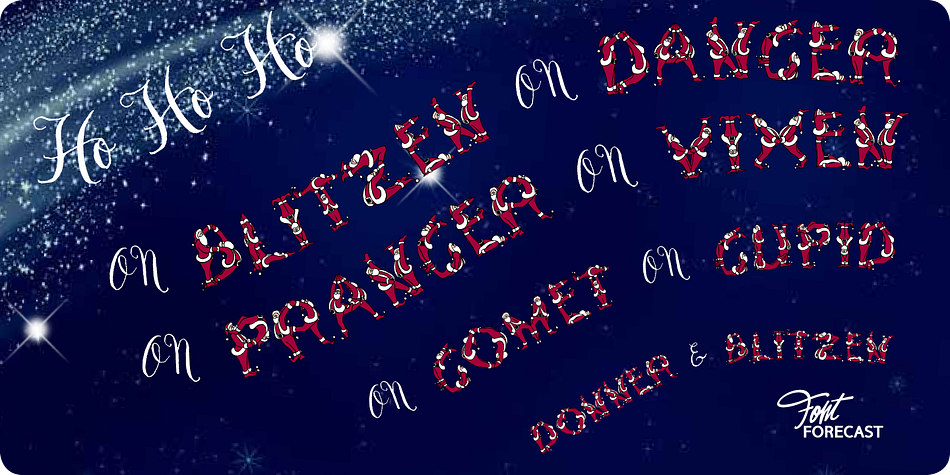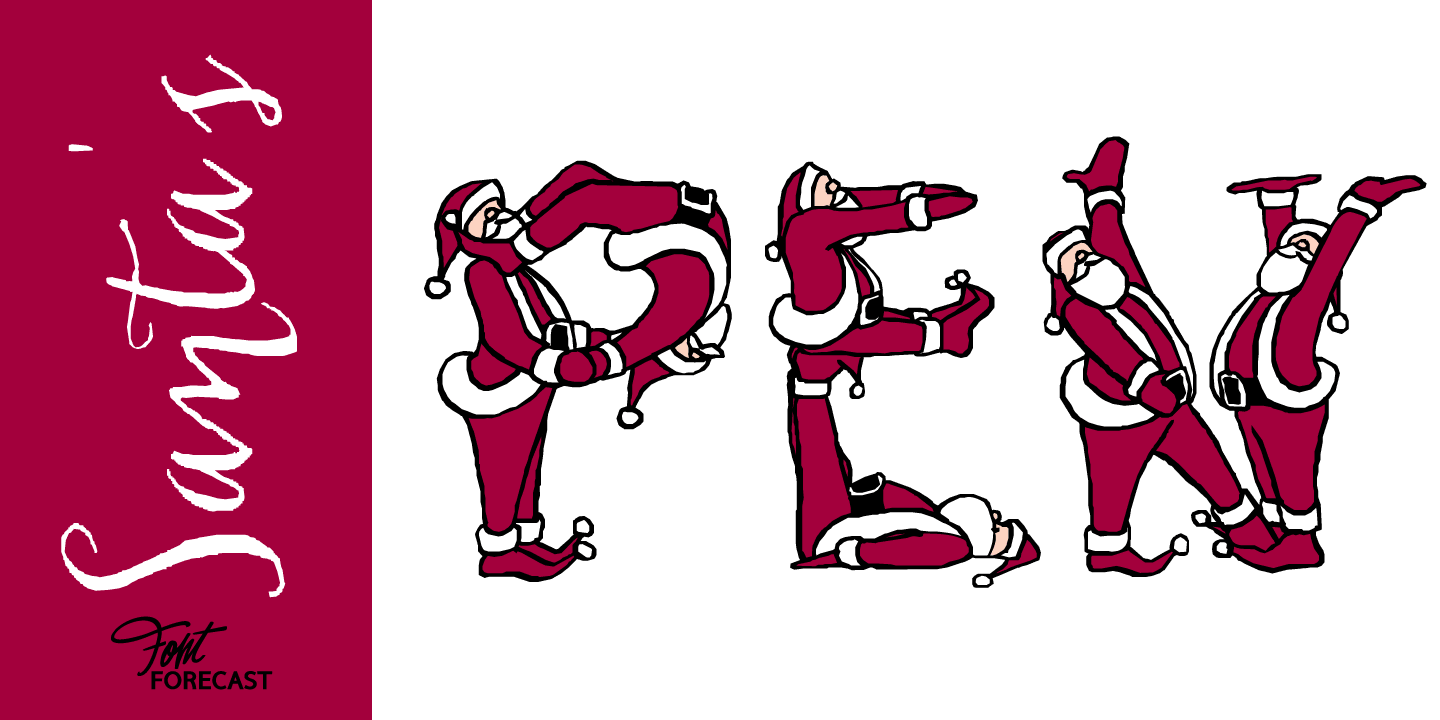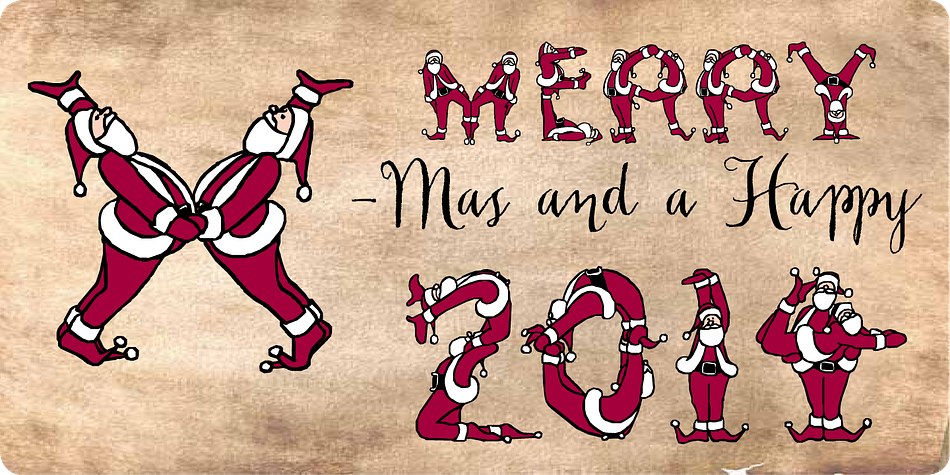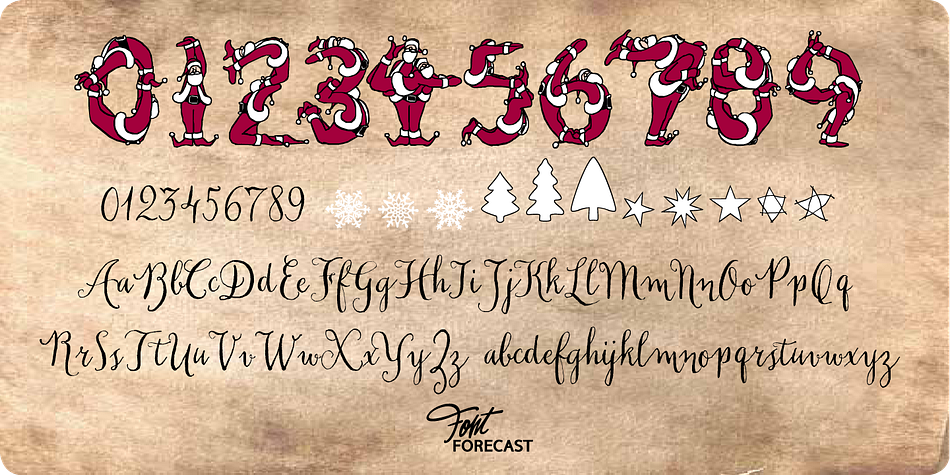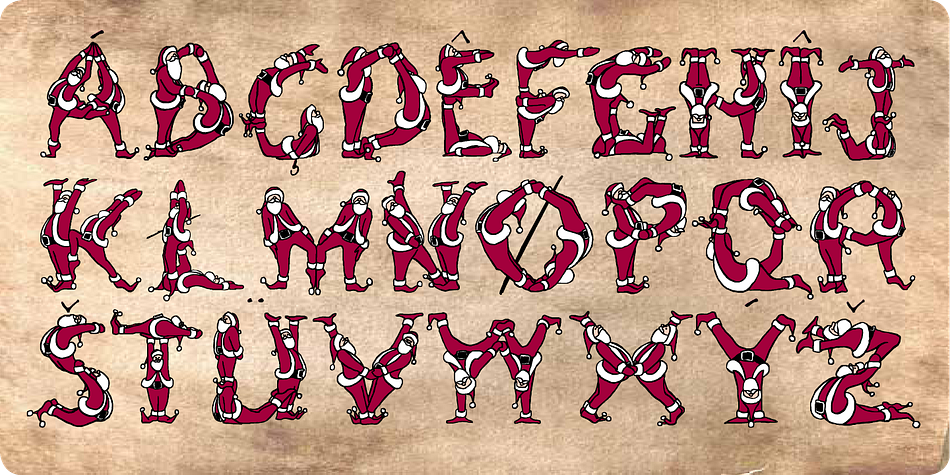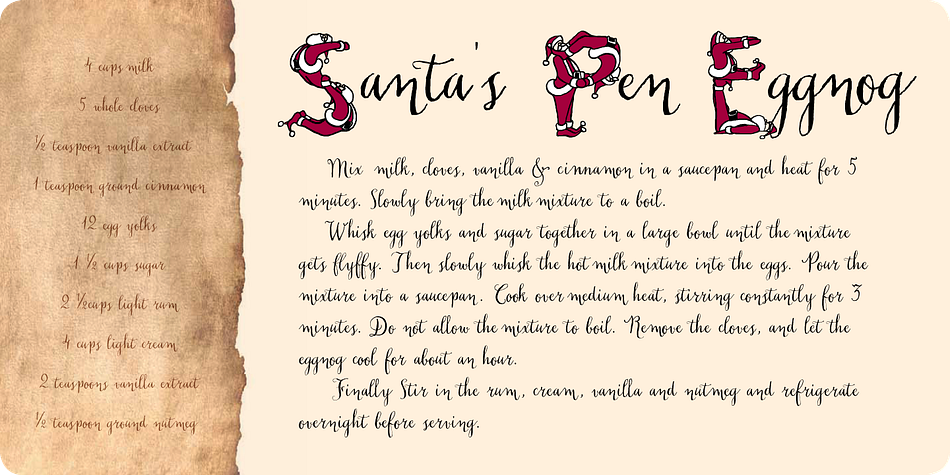
Santa's Pen is a novelty font family. This typeface has four styles and was published by Fontforecast.
Santa’s Pen was designed for use in applications that allow you to stack layers. This way, with only 4 layers, you can create these playful, full color Santa’s to spell out your christmas wishes for you. Santa’s Pen is the special Christmas edition of Chameleon Pen. By default all capitals and numbers are acrobatically represented by Santas. By simply turning on or off stylistic set 1 you’ll can toggle between the Santa version or the handwritten version of those glyphs.